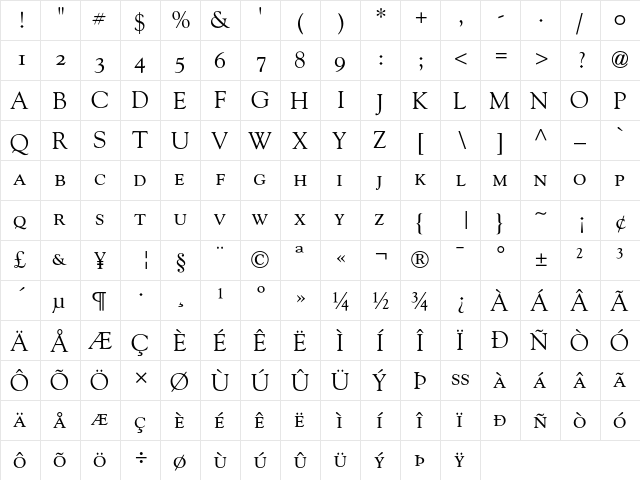
Goudy Old Style Small Caps & Old Style Figures Font Preview
Goudy Old Style Small Caps & Old Style Figures
Goudy Old Style Small Caps & Old Style Figures Font Details
| Style | Old Style Small Caps & Old Style Figures |
Design Context for Goudy Typeface
Goudy is a composed and adaptable typeface that performs quietly and consistently across a wide range of design contexts.